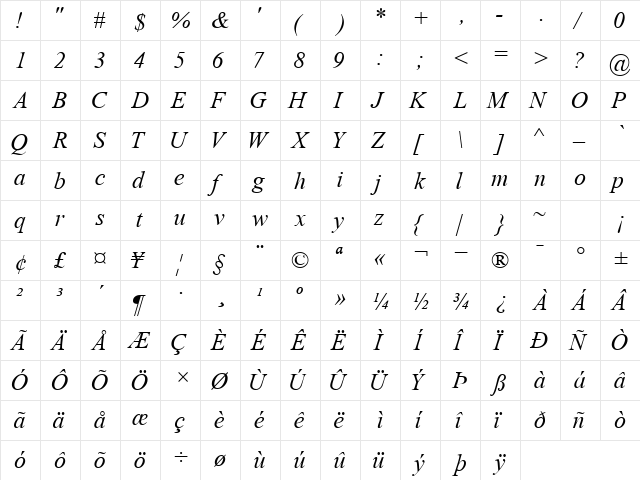
GrecoRecutSSK Italic
Design Context for GrecoRecutSSK Typeface
GrecoRecutSSK offers clean, dependable letterforms without strong stylistic allegiance, making it a practical choice for designers who need flexibility. The dynamic lean of this cut emphasises speed and emphasis in any layout.
Pro Tip: Use GrecoRecutSSK for emphasis, pull quotes, and subheadings where its slanted energy can add rhythm to the layout.